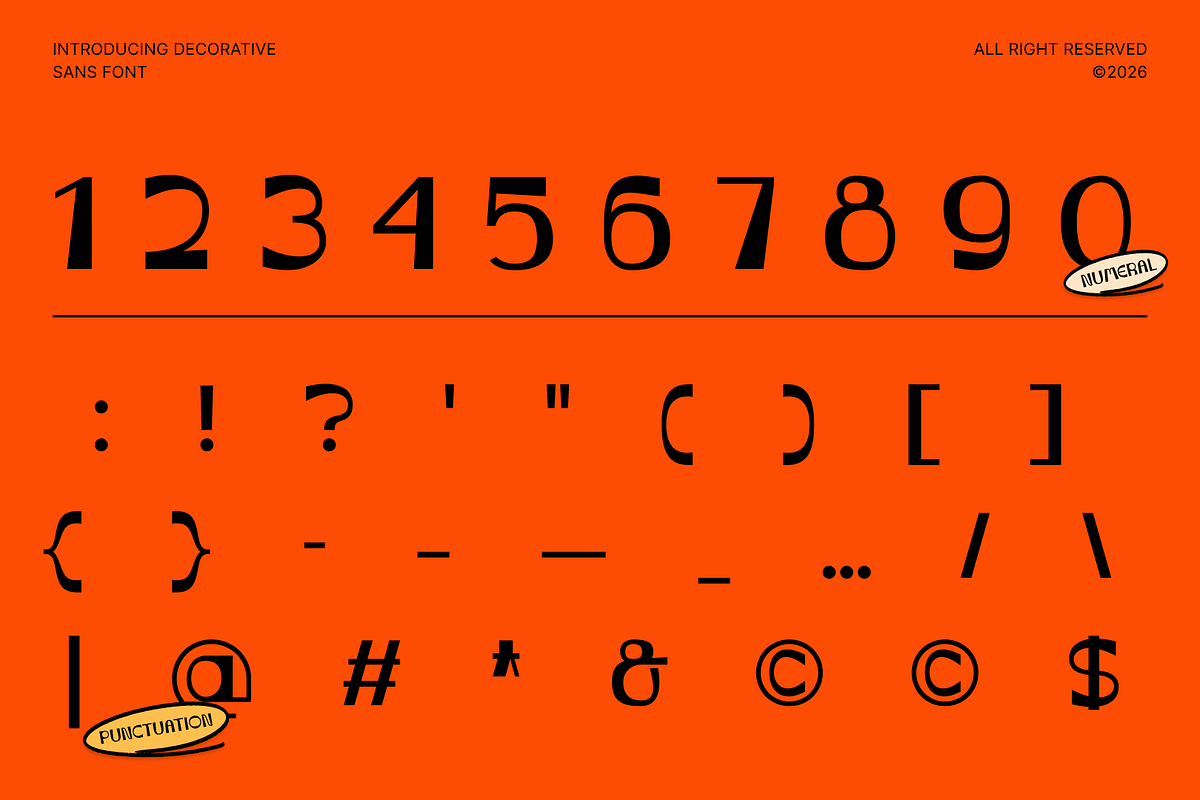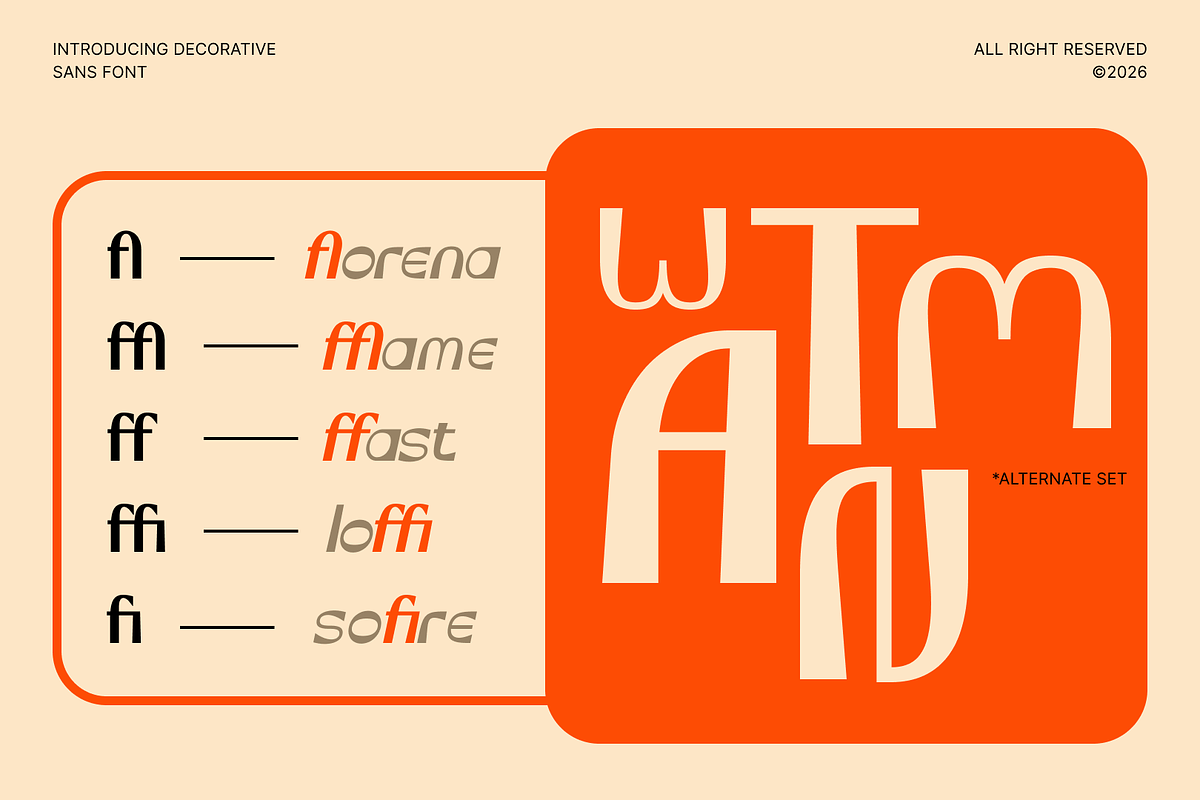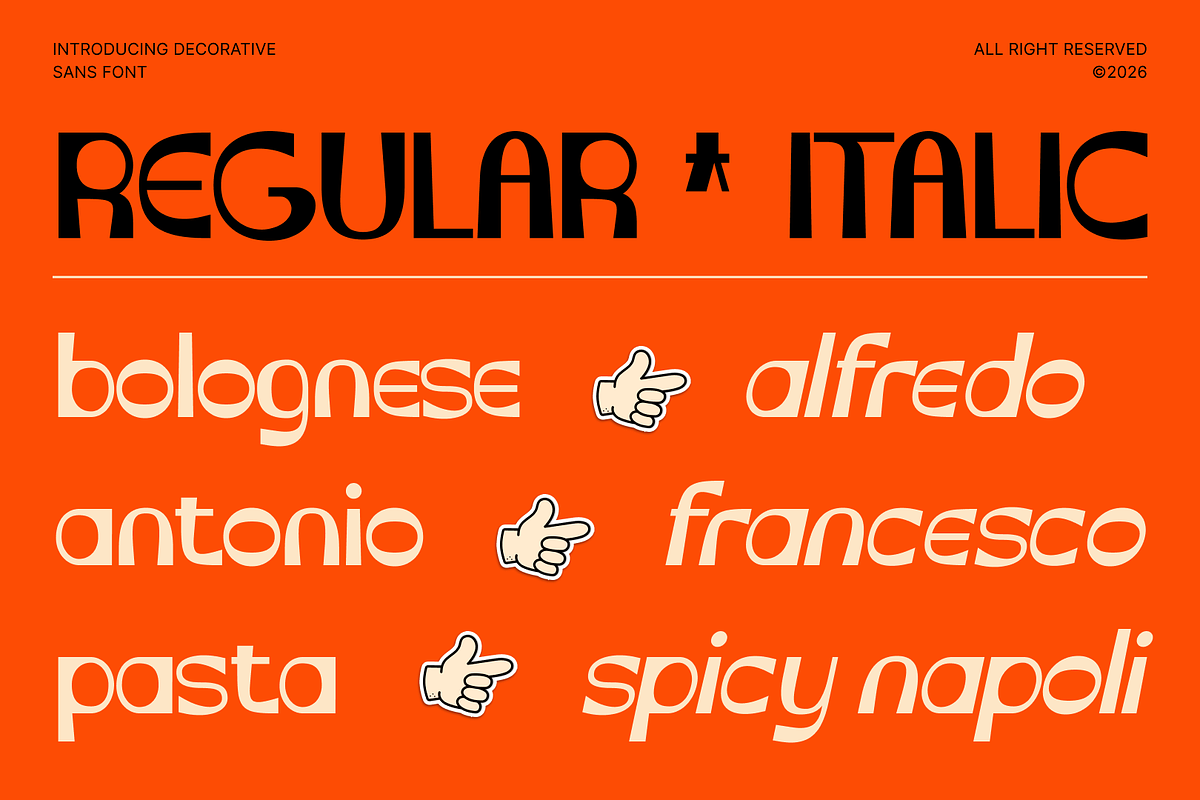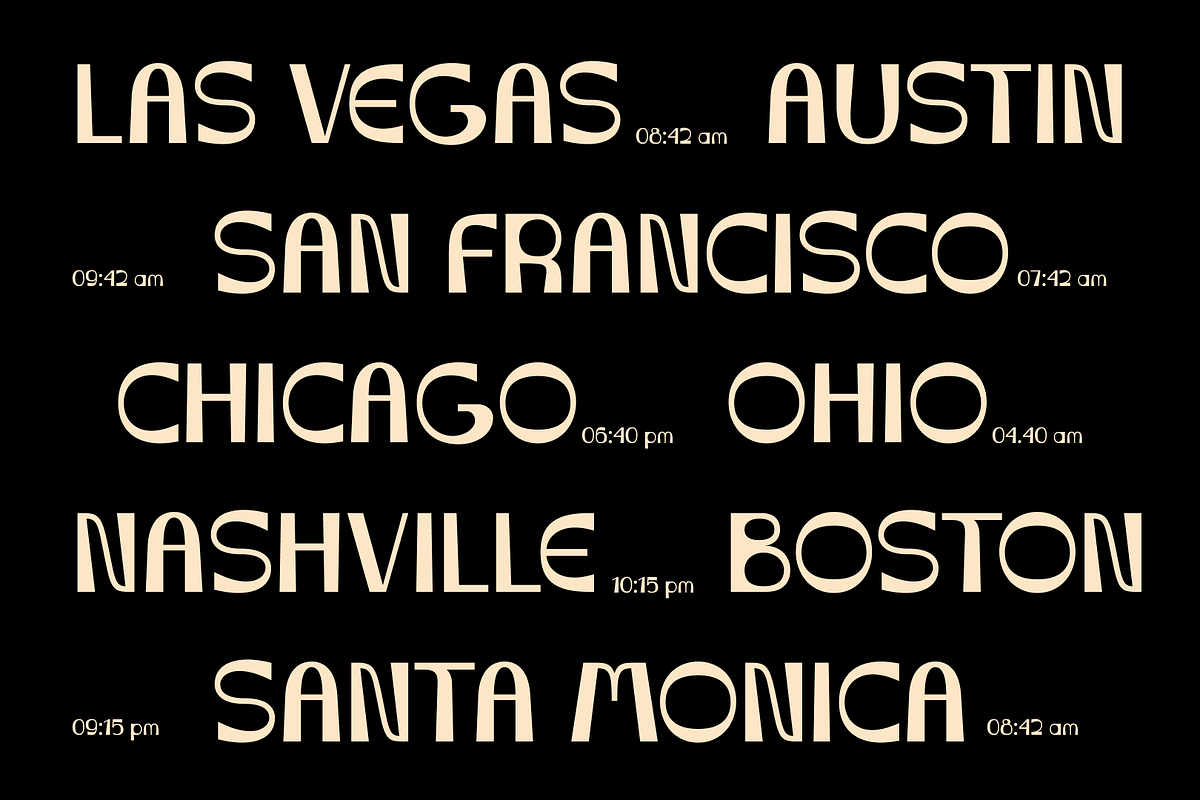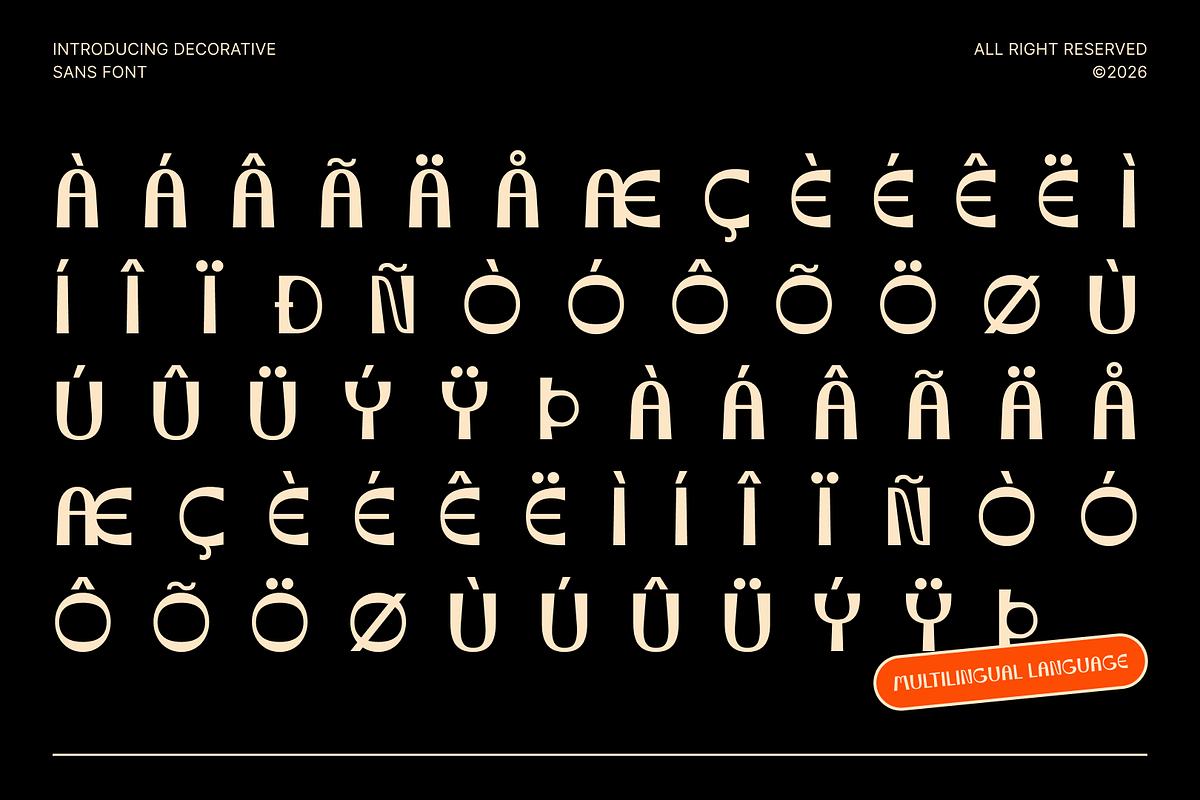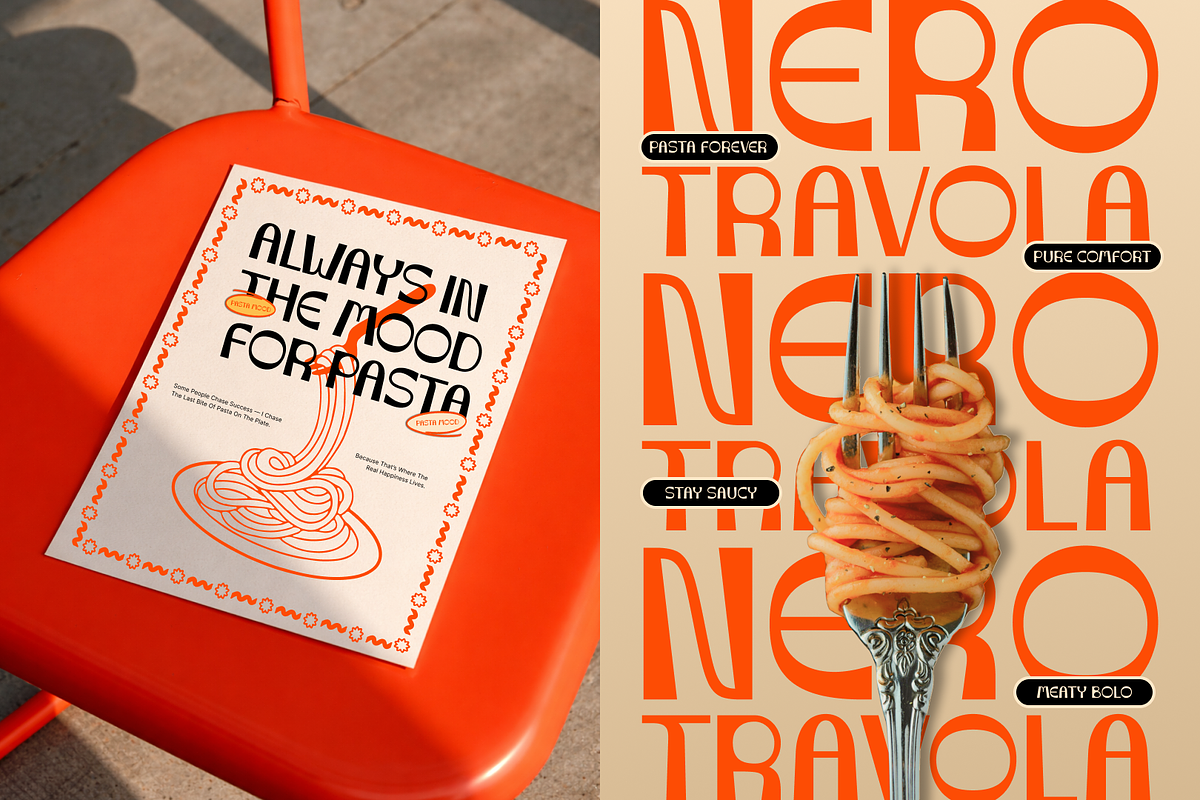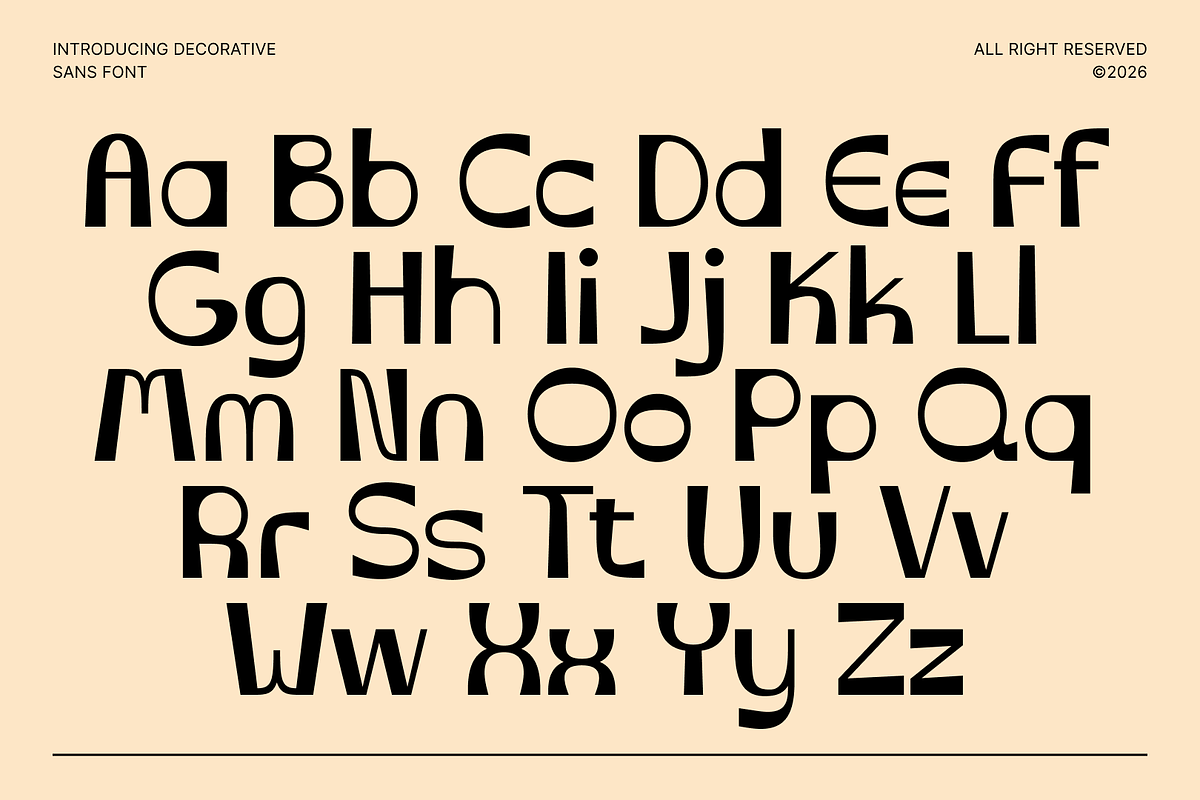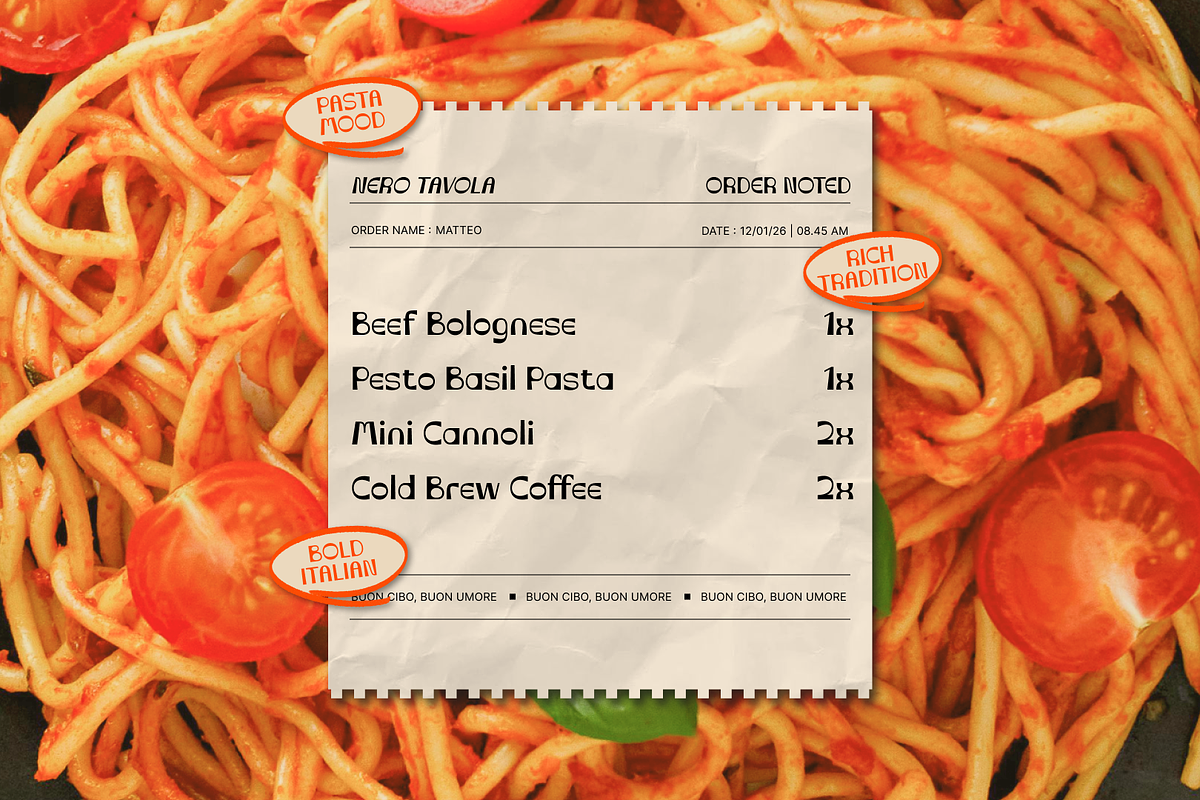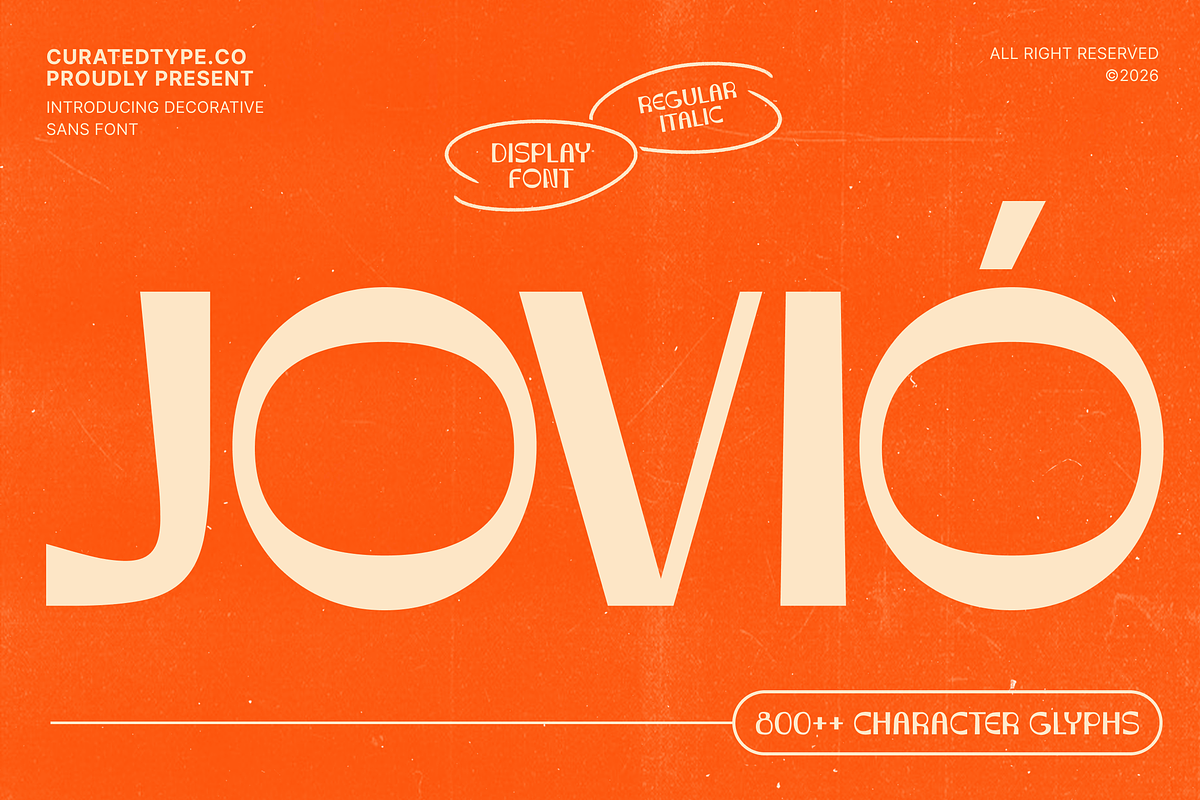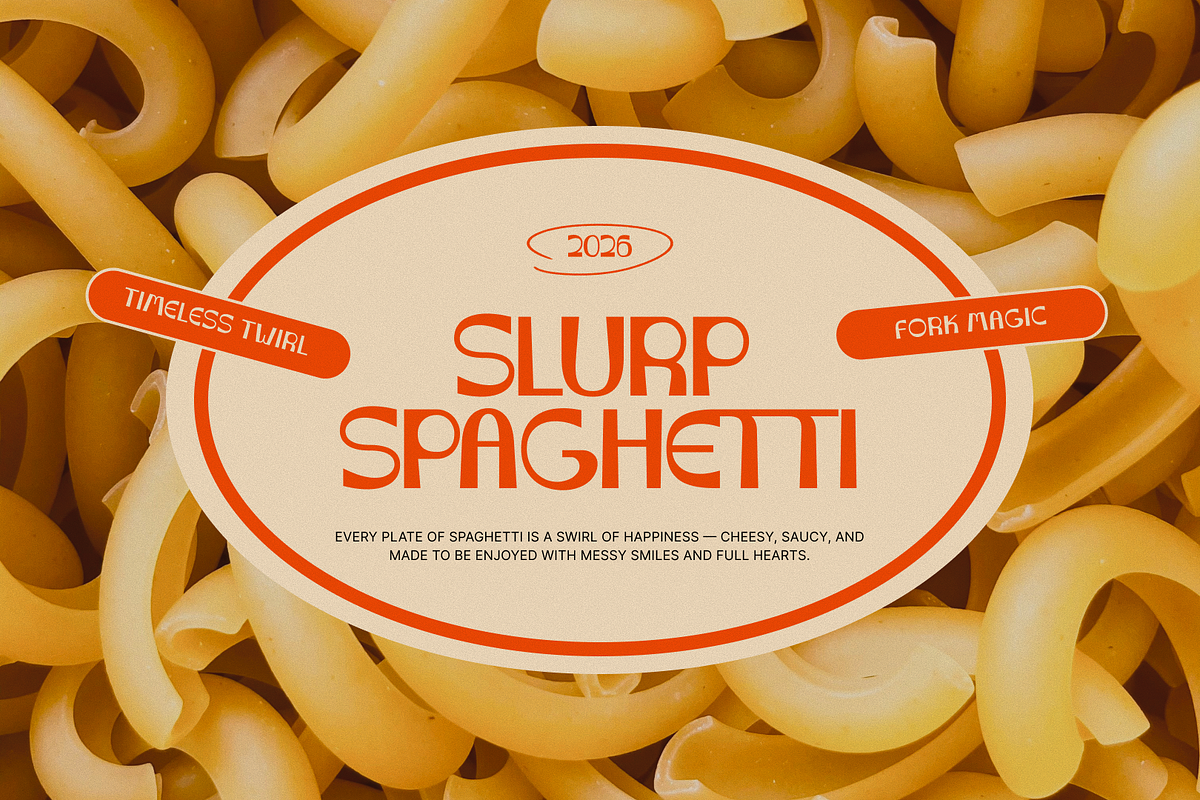
Jovió
Elevate your designs with Jovió, a typeface that captures the spirit of a bright, modern gallery. It is designed to bring a sense of sophisticated optimism to your projects, blending classic 1920s elegance with a clean, futuristic edge. Whether you are building a premium brand identity or designing a high-end magazine cover, Jovió provides a unique rhythmic texture that feels both structurally sound and effortlessly cheerful.
Designed specifically for headers and bold statements, this typeface stands out with its striking contrast and playful geometric "gaps." It is the perfect choice for luxury logos, fashion branding, and architectural signage where you need to balance professional authority with a welcoming, friendly personality. Give your text a voice that is as clear and inviting as a sunlit morning.